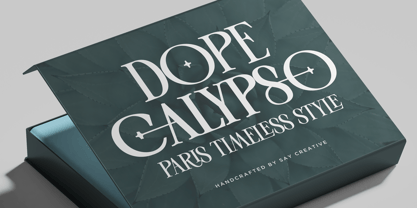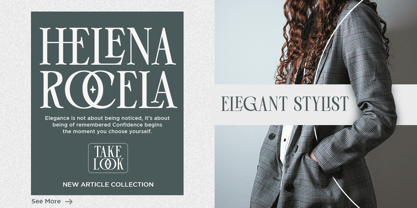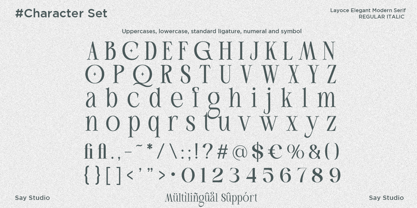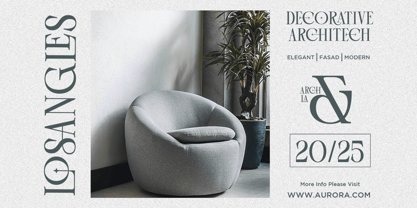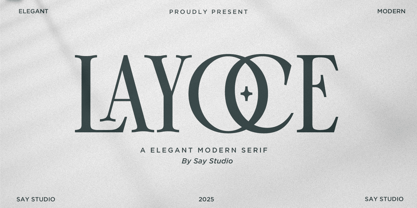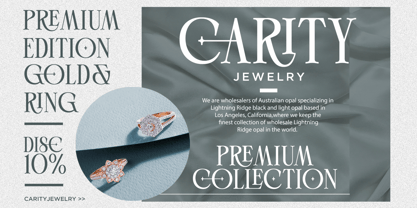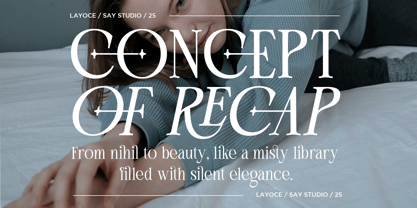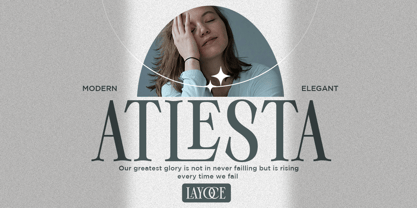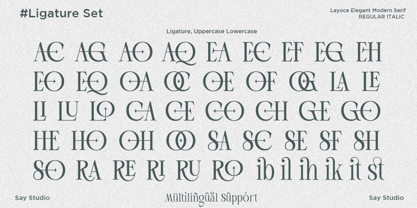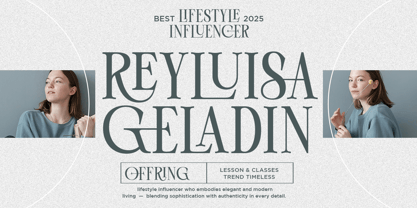
Layoce
by Say Studio
The Layoce Font Family was designed by Mussyayin and published by Say Studio. Layoce contains 2 styles and family package options. More about this family
Introducing Layoce, an elegant modern serif font family that blends timeless sophistication with contemporary luxury. Designed with refined high-contrast letterforms, graceful curves, and distinctive ligatures, Layoce creates a bold yet graceful visual identity. Every character is carefully crafted to deliver a premium look, making it an excellent choice for designers who seek elegance without sacrificing readability.
Layoce is perfect for luxury branding, fashion labels, cosmetic packaging, jewelry logos, editorial layouts, wedding invitations, boutique branding, magazine headlines, social media graphics, and premium marketing materials. Its versatile design effortlessly adapts to both classic and modern aesthetics, allowing you to create memorable visual experiences across print and digital projects.
Whether you're building a luxury brand identity or designing sophisticated typography for creative campaigns, Layoce provides the flexibility and refinement needed for professional results. Complete with uppercase and lowercase characters, numbers, punctuation, multilingual support, and elegant ligatures, Layoce is a modern serif font family that brings beauty, confidence, and timeless style to every design.
• Regular and Italic
• Stylistic Ligatures
• Uppercase and Lowercase
• Number, Symbol, and Punctuation
• Multi Language Support
Designers: Mussyayin
Foundry: Say Studio